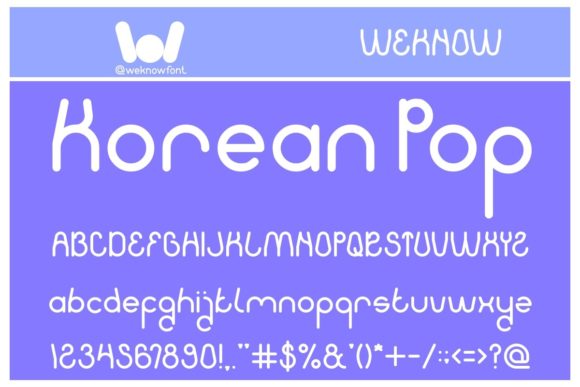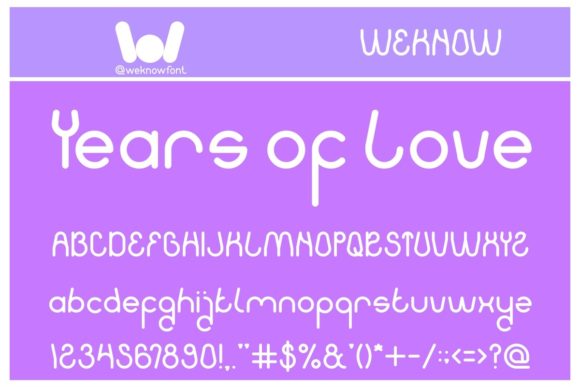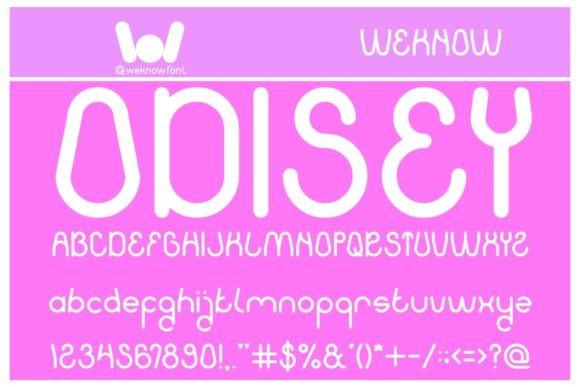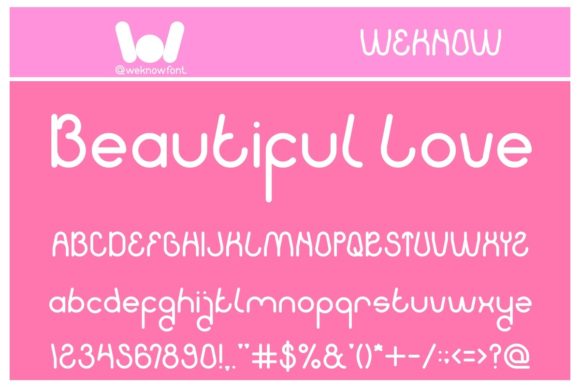
Introduction to Kissing the Rain Font
Kissing the Rain is a cool display font, uniquely designed to become a true favorite.
It maintains its modern calligraphic influences, feeling contemporary and fresh .
Key Features of Kissing the Rain Font
Why Choose Kissing the Rain Font?
Kissing the Rain Font offers exceptional quality and versatility, making it a valuable addition to your design toolkit. Whether you’re creating for personal projects or commercial use, Kissing the Rain Font delivers professional results.